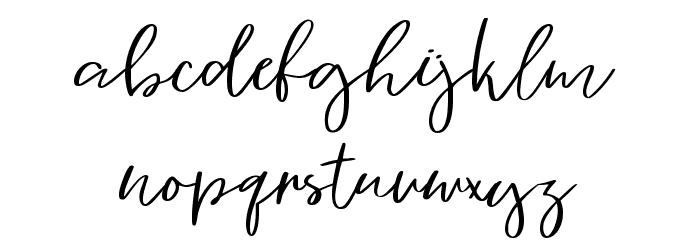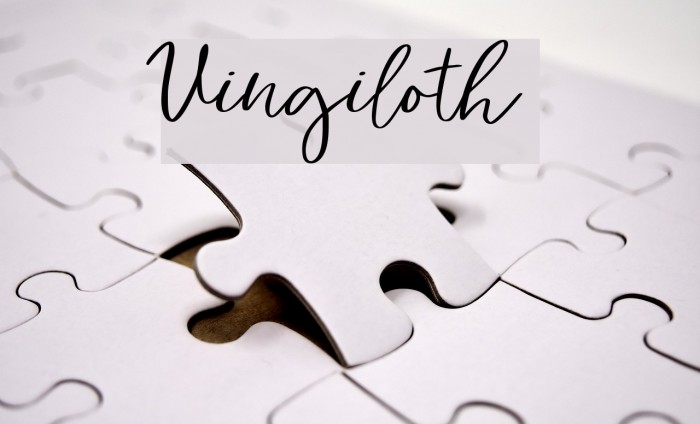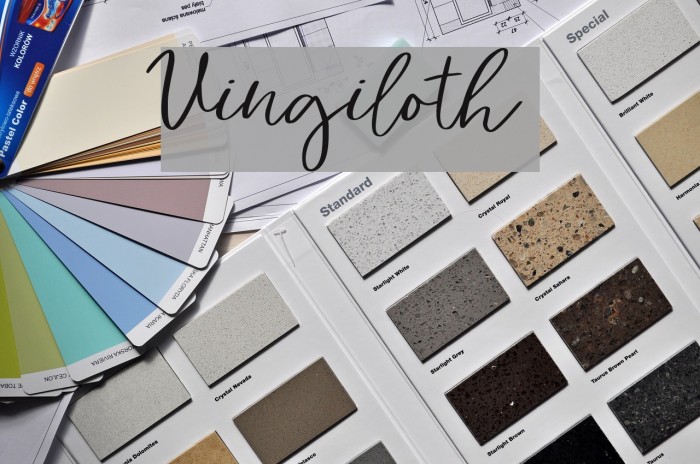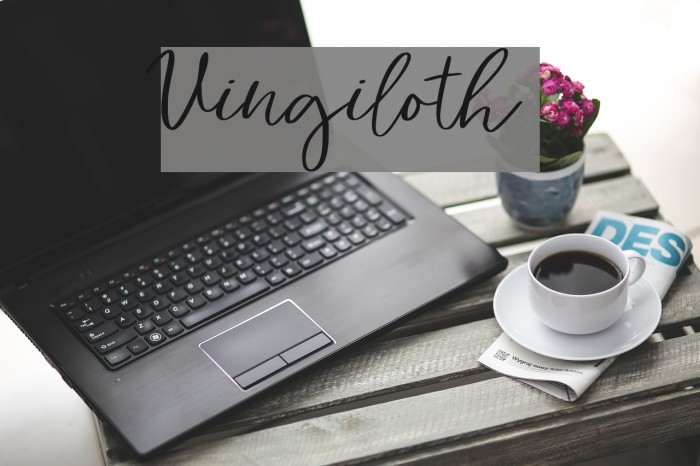
Vingiloth Font
This font features an elegant, flowing script style that mimics the fluidity of natural handwriting. The uppercase letters are bold and sweeping, with distinctive loops and curves that give them a sense of movement and grace. The lowercase letters maintain a consistent style, with elongated ascenders and descenders that enhance the font's overall elegance. The characters are well-spaced, allowing for readability while maintaining a connected, cursive appearance. This font is ideal for projects that require a personal touch, such as invitations, greeting cards, or branding materials. Its decorative nature makes it stand out, yet it remains legible and stylish.
A graceful, flowing script font with elegant loops and curves.
- Proposed Projects: Ideal for wedding invitations, greeting cards, branding, and decorative projects.
- Category: Script
- Overall Style: Elegant, Decorative
- Use Case: Invitations, Greeting Cards, Branding